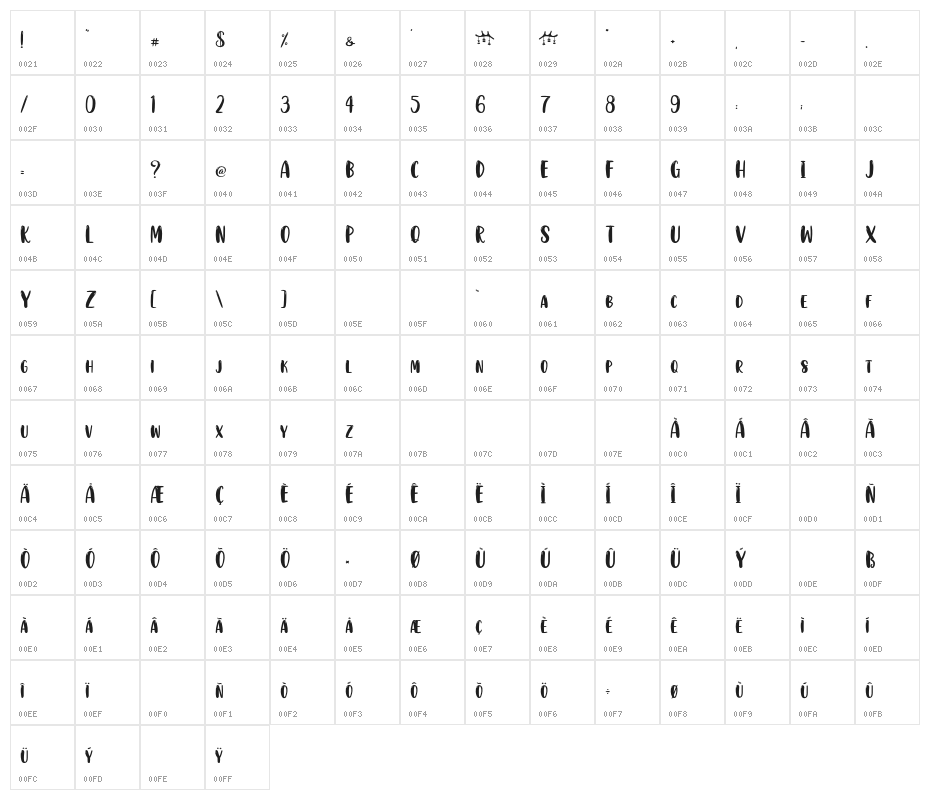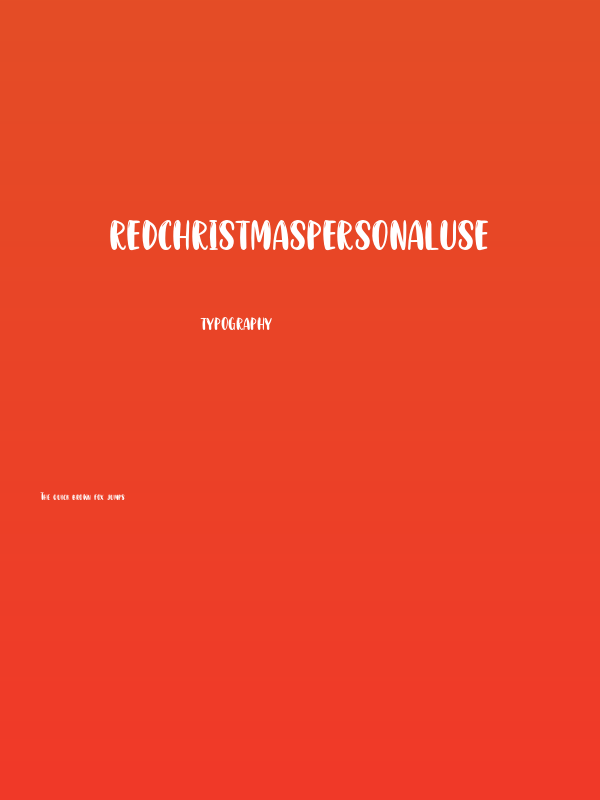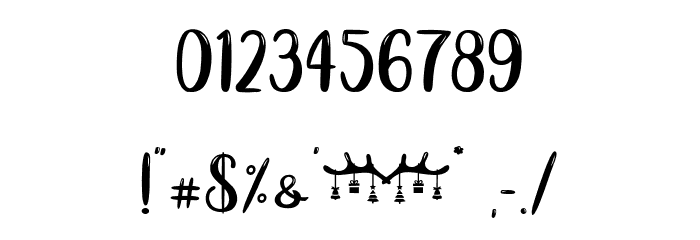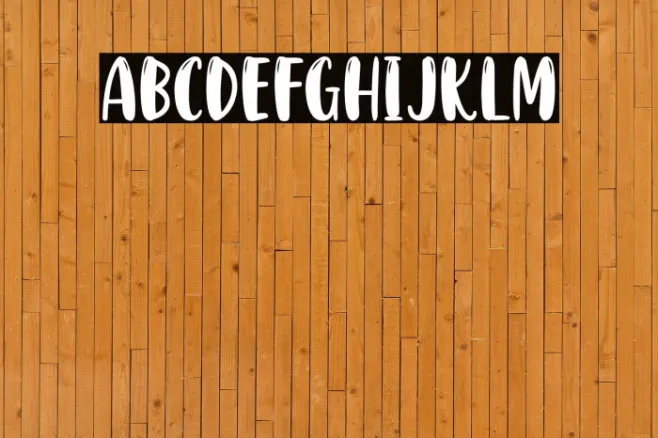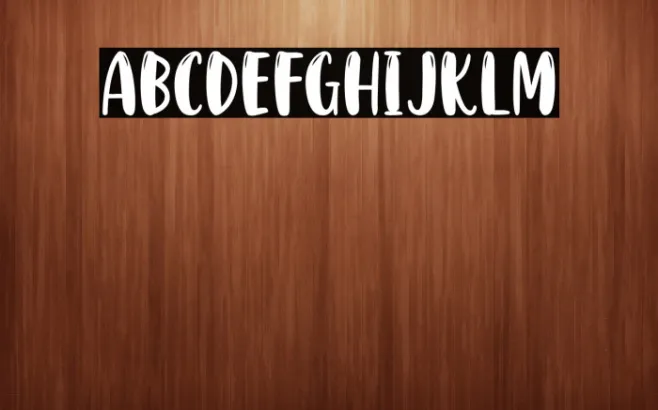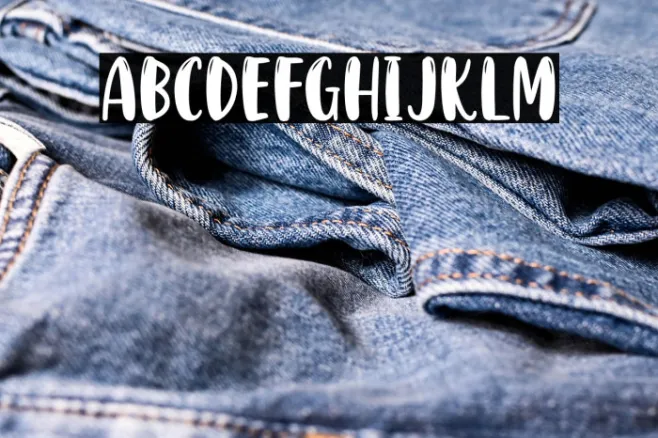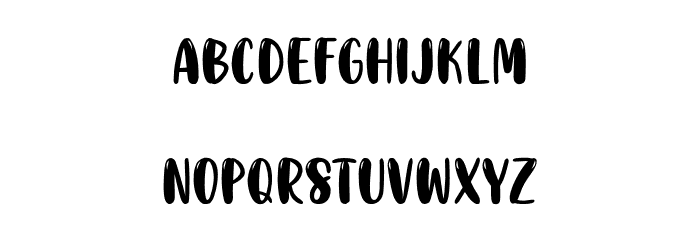
RedChristmasPersonalUse Font
RedChristmasPersonalUse Description
This font features a playful and festive style with a handwritten appearance, perfect for holiday-themed projects. The characters are bold and rounded, giving a warm and inviting feel. The uppercase and lowercase letters maintain a consistent style, with a slight slant that adds to the casual and friendly look. The numbers and special characters are designed to match the overall aesthetic, ensuring a cohesive appearance across all text. The font's unique charm makes it ideal for creating eye-catching designs that capture the spirit of the season.
| Use Case | Headlines, Logos, Decorative text |
| Proposed Projects | Ideal for holiday cards, festive banners, seasonal advertisements, and decorative posters. |